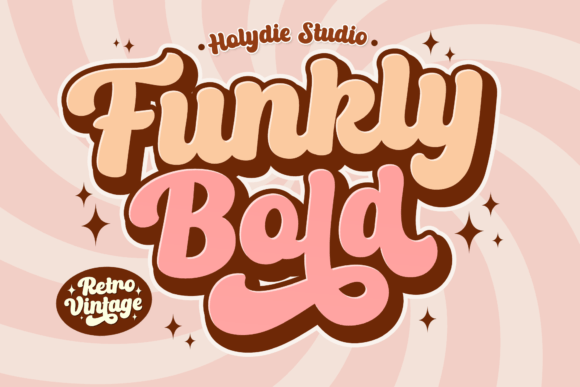
Introducing Funkly Bold Font, the ultimate script font designed by Holydie Studio. Get ready to add a touch of retro charm and boldness to your designs with this captivating typeface. With its cool flow and eye-catching appeal, Funkly Bold is the perfect choice for those looking to elevate their creative projects.
Embrace the spirit of Thanksgiving and give your designs a festive twist with Funkly Bold. This font is specially crafted to enhance your holiday-themed creations and capture the essence of gratitude and warmth. Its bold and well-balanced characters will effortlessly convey your message, making it the best font for Thanksgiving projects.
One of the standout features of Funkly Bold is its versatility. Whether you're designing invitations, posters, logos, or social media graphics, this font will adapt to any context and elevate your visual storytelling. Its script style adds a touch of elegance, while the retro vibes give it a unique and nostalgic appeal. Stand out from the crowd and make a lasting impression with Funkly Bold.
Not only does Funkly Bold look amazing, but it also offers incredible functionality. With PUA encoding, accessing all the glyphs and swashes has never been easier. Unlock a treasure trove of design possibilities and effortlessly customize your typography to suit your creative vision. From elegant ligatures to stylish alternates, Funkly Bold has everything you need to make your designs truly unique.
Let your imagination run wild and create stunning designs with Funkly Bold. Whether you're a professional designer or a DIY enthusiast, this font will empower you to bring your ideas to life. Its captivating flow and intricate details will instantly captivate your audience and leave a lasting impression.
Join the countless designers who have already fallen in love with Funkly Bold. Experience the joy of working with a font that combines style, functionality, and a touch of nostalgia. With its emotive and expressive qualities, Funkly Bold will evoke a sense of excitement and anticipation in your audience, making it the perfect choice for any design project.
In conclusion, Funkly Bold Font is the ultimate script font for those seeking to infuse their designs with retro charm and boldness. Its versatility, captivating flow, and PUA encoding make it a must-have for any designer or creative enthusiast. Don't miss out on the opportunity to elevate your designs and create something truly extraordinary. Download Funkly Bold today and embark on a typographic journey like no other.